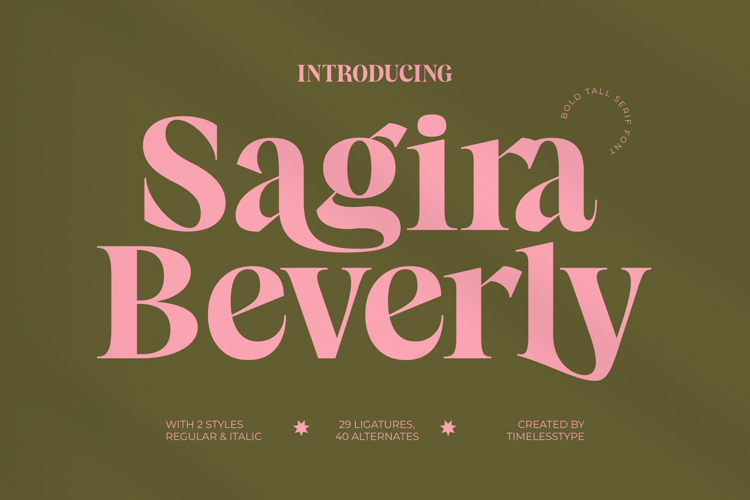
Sagira Beverly - Bold Tall Serif Font
Ignite your design portfolio with the undeniably glamorous presence of Sagira Beverly - Bold Tall Serif Font. This display typeface masterfully blends bold visual weight with an elegant, elongated structure, creating a dynamic typographic statement. Its fluid curves and sharp serifs establish a high-contrast rhythm, perfect for capturing attention in large-scale headlines and branding applications that demand immediate impact and inherent sophistication.
Unleash unparalleled creative flexibility through its robust OpenType features. Sagira Beverly - Bold Tall Serif Font boasts 29 meticulously crafted ligatures and 40 stylistic alternates, enabling designers to construct unique typographic lockups that appear custom-drawn. This extensive character set, coupled with two distinct styles (Regular and Italic), ensures seamless visual flow, making it the definitive choice for sophisticated editorial layouts and distinctive luxury packaging.
Expand your brand’s reach without compromising its refined aesthetic. With its extensive multilingual support, Sagira Beverly - Bold Tall Serif Font adapts seamlessly across global markets, making it incredibly versatile for international projects. This global compatibility ensures that your premium design vision translates perfectly, regardless of the target language or region, maintaining brand consistency worldwide and opening doors to new clientele.
Designed specifically for the high-end market, Sagira Beverly - Bold Tall Serif Font is the ultimate toolkit for aspirational brands. It is perfect for luxury branding, exclusive magazine titles, high-fashion editorials, opulent cosmetic packaging, and impactful social media campaigns. Elevate your project instantly with this timeless yet boldly contemporary serif, guaranteeing that your work resonates with premium quality and undeniable style.